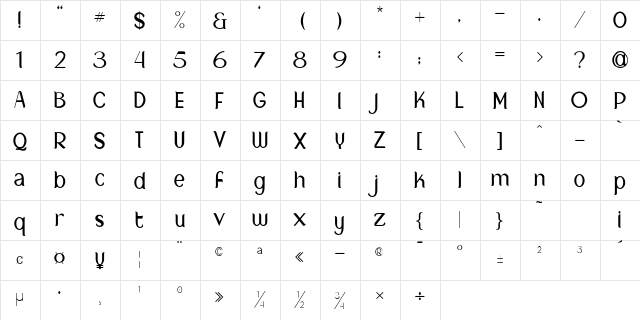
New Crown Light_DEMO
Design Context for New Crown Typeface
New Crown is a composed and adaptable typeface that performs quietly and consistently across a wide range of design contexts. Its slender proportions lend an understated elegance to any composition.